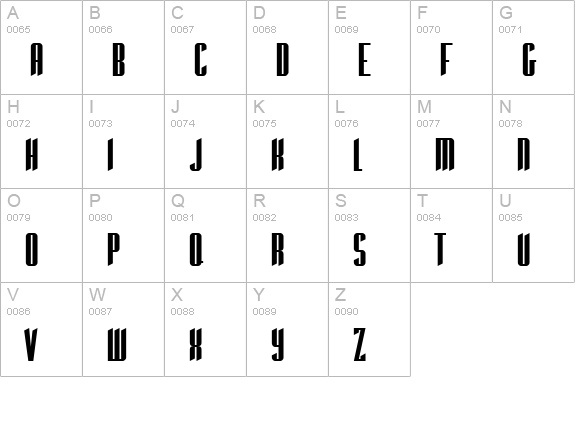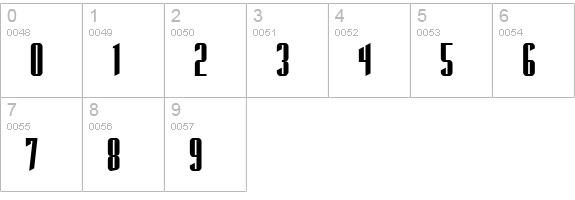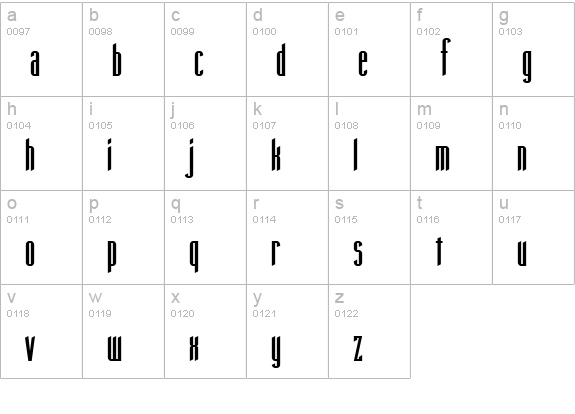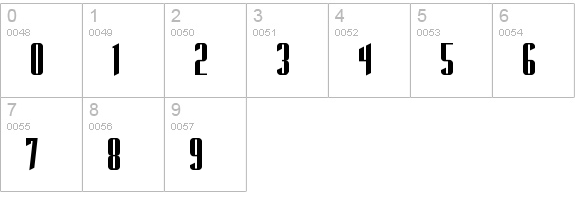
Taber Block font is a modern and versatile typeface that embodies strength and boldness. Its robust and geometric design makes it perfect for eye-catching headlines, titles, and logos. With its clean lines and sharp edges, Taber Block adds a touch of professionalism and sophistication to any design project. This font's unique character lies in its ability to seamlessly blend contemporary aesthetics with a timeless appeal. Its chunky and solid letterforms exude a sense of confidence and reliability, making it an excellent choice for branding, packaging, and editorial design. The best part is that Taber Block font is available for free! Yes, you heard it right. You can download this amazing font at FontsMarket.com without spending a dime. Its freely accessible nature allows designers, creatives, and enthusiasts to explore its potential without any barriers. Whether you are a seasoned designer or just starting out, Taber Block font offers a wide range of possibilities to elevate your designs. Its extensive character set includes uppercase letters, numbers, symbols, and punctuation marks, ensuring versatility across various languages and design applications. So, why wait? Start using Taber Block font today and unleash your creativity like never before. Download it for free at FontsMarket.com and experience the power of this remarkable typeface.